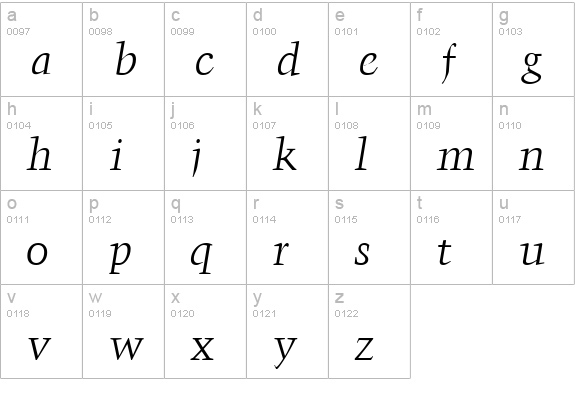
Triumph Italic Font Details
Triumph Italic is a distinctive, italic variant in the Triumph typeface family \xE2\x80\x94 well suited to design and typography projects.
Triumph Italic is a stunning font that exudes elegance and sophistication. Its beautifully curved letterforms and delicate strokes make it the perfect choice for projects that demand a touch of grace and refinement. Whether you're designing a wedding invitation, a luxury brand logo, or a high-end editorial spread, Triumph Italic will add a touch of class and timeless beauty. What sets Triumph Italic apart is not only its aesthetic appeal but also its versatility. It can effortlessly adapt to various design contexts, seamlessly blending with both traditional and contemporary aesthetics. Its timeless charm makes it a font that will never go out of style, ensuring your designs stand the test of time. One of the most remarkable aspects of Triumph Italic is that it is freely available to download at FontsMarket.com. This means that you can easily access this stunning font without any hassle or cost. With its availability, Triumph Italic empowers designers, creatives, and typographers to explore their creative potential without any limitations. The attention to detail in Triumph Italic is unparalleled. Each letter is meticulously crafted, resulting in a harmonious and balanced typeface that is pleasing to the eye. The fluidity of the strokes and the subtle variations in line weight lend a sense of movement and energy to the text, making it captivating and engaging. Whether used for print or digital media, Triumph Italic shines through with its legibility and readability. It ensures that your message is conveyed clearly and effectively, allowing the content to take center stage. Its effortless readability makes it an ideal choice for body text, headlines, captions, and any other textual element that requires clarity and precision. In conclusion, Triumph Italic is a truly remarkable font that effortlessly combines elegance, versatility, and timeless appeal. Its availability for free download at FontsMarket.com makes it even more accessible to designers and creatives worldwide. So why wait? Take advantage of this opportunity and discover the beauty and versatility of Triumph Italic for your next design project.